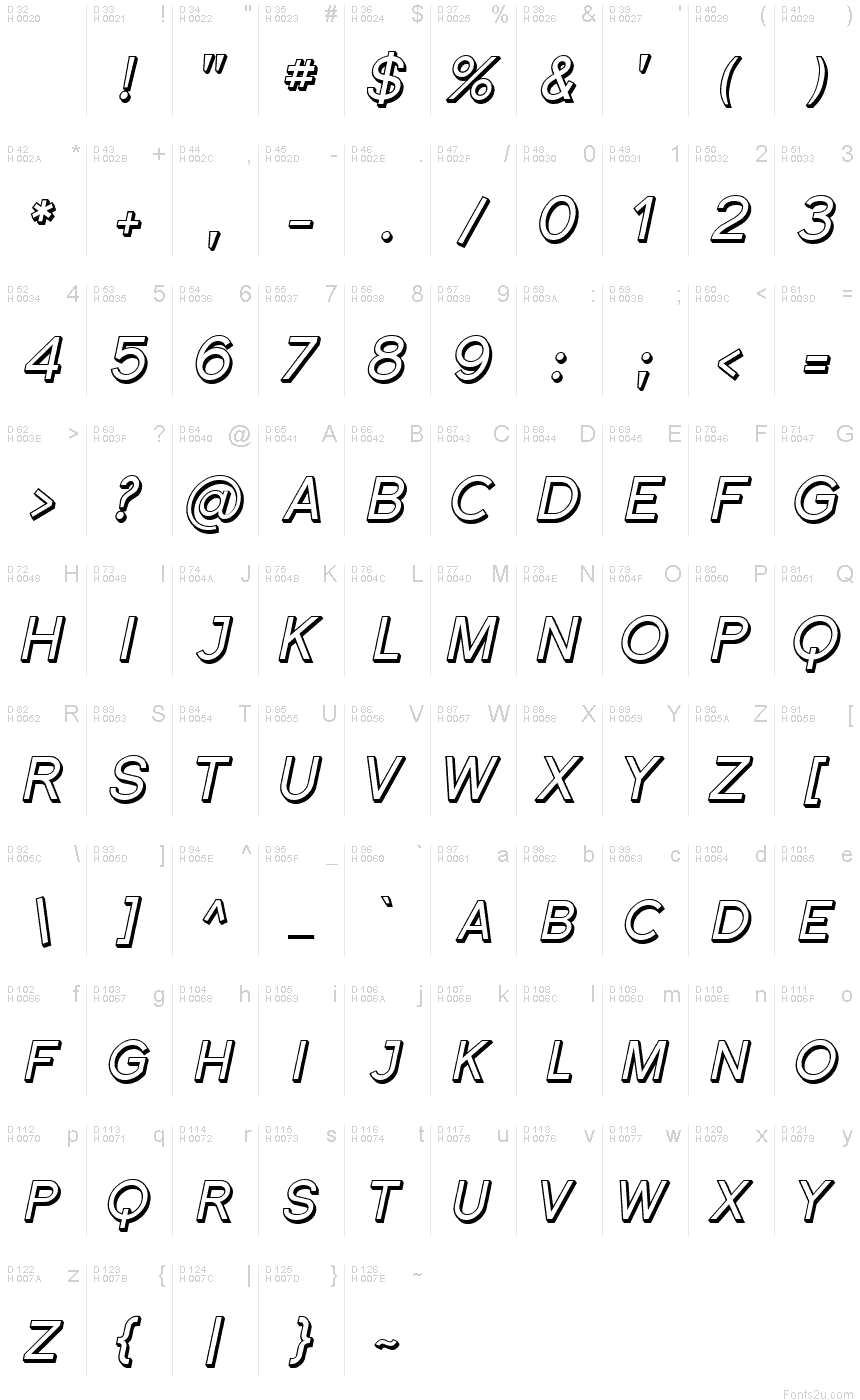
Florencesans SC Shaded Italic
Florencesans SC Shaded Italic font by Derek Vogelpohl is a free 3D display font that throws your text forward with bold, poster-ready energy. The tight, slanted letters and hollow centers are wrapped in crisp black outlines and hatched shading, so each word feels like it’s been lifted off vintage signage or an old-school comic cover. In the Florencesans SC Shaded family, this style delivers a lively, dimensional look without needing extra effects or layering.
Using Florencesans SC Shaded Italic, headlines instantly gain that punchy, retro-tilted presence that works beautifully on event flyers, posters, packaging, album covers, and bold logo lockups. This free font shines when set big and generous, then paired with a clean, neutral sans-serif for body copy or small captions. Keep the color palette simple-two or three tones-and let the chunky shading and slanted rhythm do the heavy lifting in your layout.